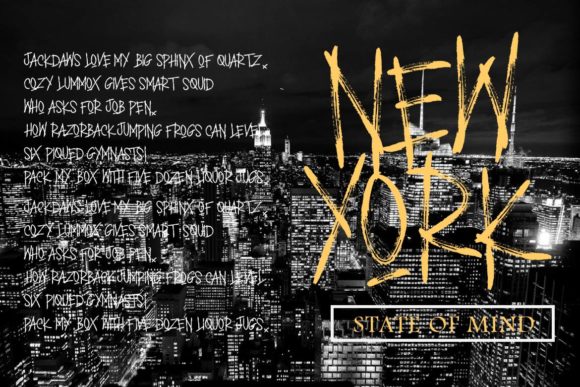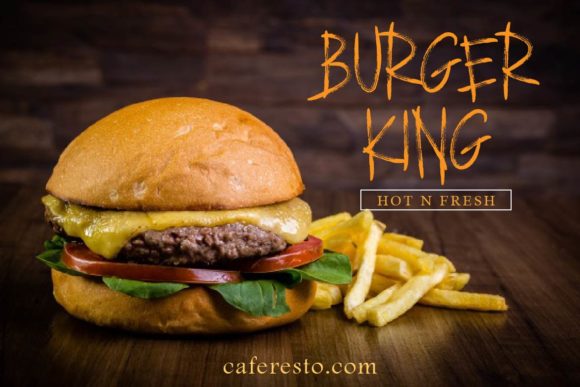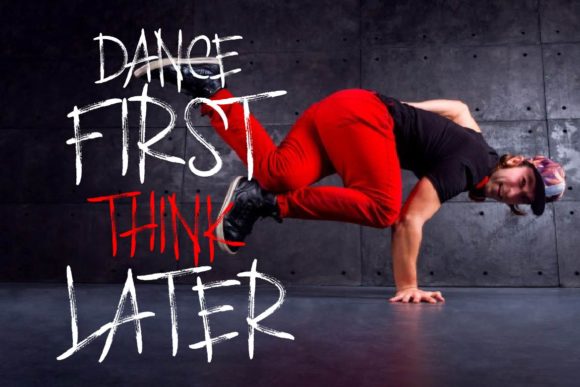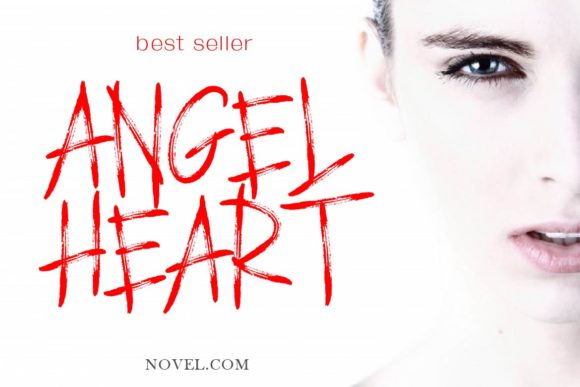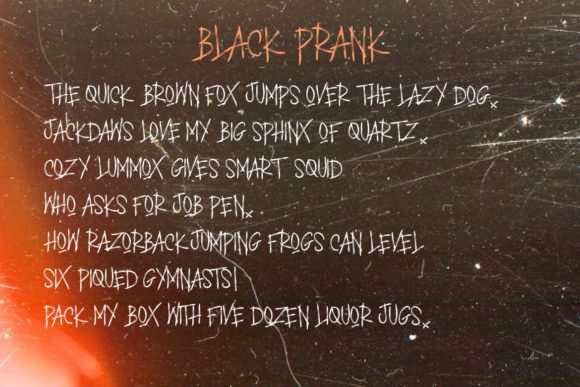
The Art of Typography: Unlocking the Potential of Black Prank Font
Have you ever stared at a blank page, your mind racing with creative ideas but unable to put them into words? This is where the magic of typography comes in – the perfect font can elevate your message and transport your audience to a new level of understanding. For designers, finding the right font can be a daunting task, but what if I told you there’s a font that’s as quirky as it is versatile?
Enter Black Prank Font, a unique display font that’s equal parts playful and sophisticated. With its offbeat charm, Black Prank Font is perfect for designers looking to add a touch of whimsy to their designs. Whether you’re working on a branding project, creating a social media campaign, or simply need a font to stand out, Black Prank Font is an invaluable addition to your toolkit.
- Unique Characteristics: A bold, graffiti-inspired font with a distressed look, ideal for creating eye-catching headlines and titles
Designer Review: Black Prank Font
Overall, I’d say the Black Prank Font is an interesting choice for those looking for a bold, edgy feel. ✨ Here are some of its standout features:
- Unique letterforms that are sure to make a statement: The font’s playful, handwritten feel can add a lot of personality to a design.
- Good for titles and headings: The font’s large x-height and bold weight make it well-suited for use as a title or heading font.
- Works well in digital formats: The font is clear and legible even at small sizes, making it a good choice for digital use.
However, there are also some limitations to consider: ⚠️
- May be difficult to read at small sizes: While the font is clear and legible at larger sizes, it can become difficult to read at smaller sizes.
- May not be suitable for body text: The font’s bold, playful feel may not be suitable for use as a body text font, where readability is key.
- Limited font sizes and styles: The font comes in a limited range of sizes and styles, which may limit its versatility.
Overall, I’d say the Black Prank Font is a good choice for designers who are looking for a bold, edgy feel. While it has some limitations, its unique letterforms and clear digital readability make it a solid option for titles and headings.
Getting the Most Out of Black Prank Font
For best results, use Black Prank Font in bold or italic styles to add emphasis to your text. Experiment with different font sizes and colors to create a visually appealing design.
Black Prank Font is perfect for creating eye-catching headings, titles, and logos. Use it in designs where you want to add a touch of edginess and sophistication.